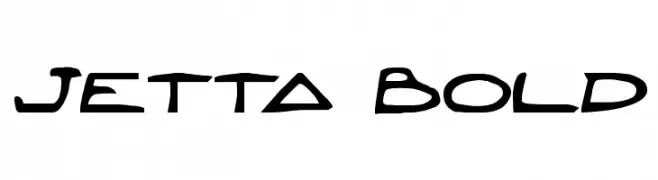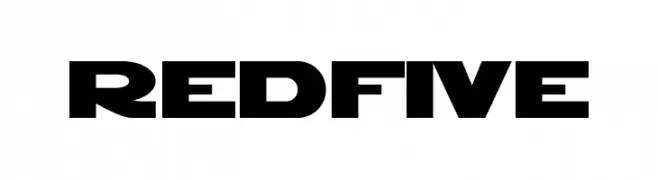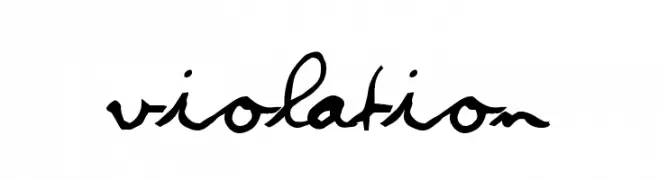
A bold, dynamic font with sharp, angular edges and a hand-drawn appearance.
A bold, geometric font with a modern and slightly condensed style.
A bold, geometric font with sharp angles and a modern design.
A lively and expressive handwritten font with varied stroke thickness.